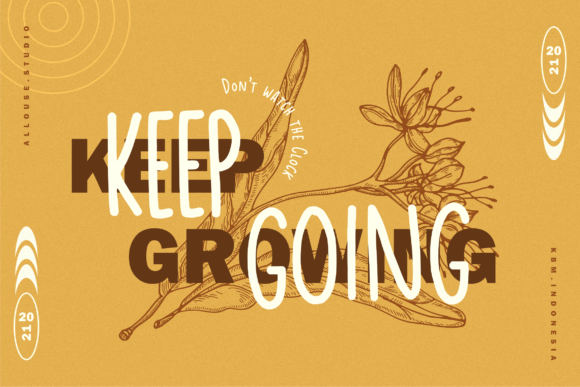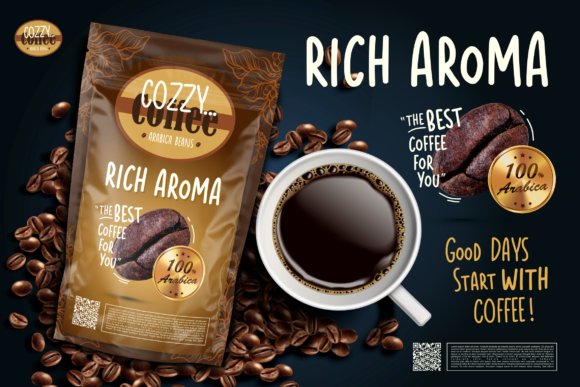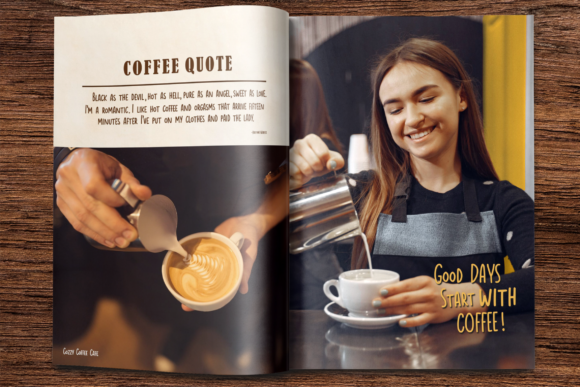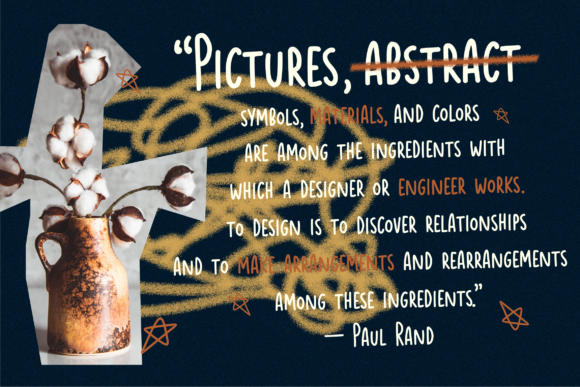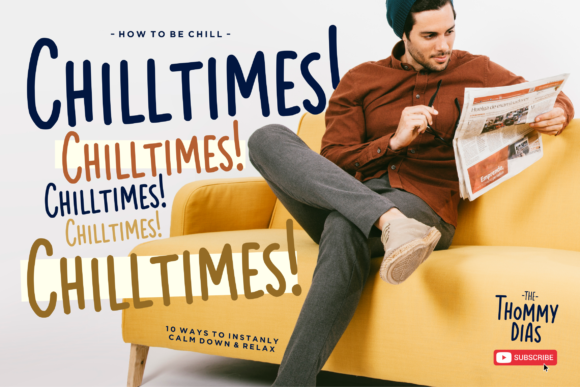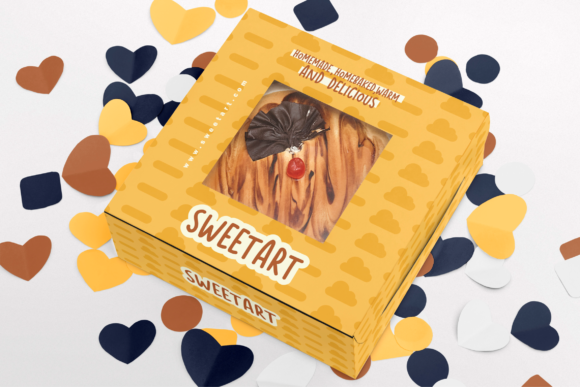
Introducing Brandy Coffee Font: The Sweet and Friendly Handwritten Font
Are you a designer or crafter looking for a font that can add a touch of sweetness and friendliness to your designs? Look no further than Brandy Coffee Font! This beautiful handwritten font is perfect for a wide range of projects, from branding and packaging to invitations and crafts. In this article, we’ll take a closer look at Brandy Coffee Font and explore its unique features, uses, and benefits.
A Natural and Unique Style
Brandy Coffee Font is a sweet and friendly handwritten font that boasts a natural and unique style. Its organic feel makes it incredibly fitting for a large pool of designs, from rustic and vintage to modern and playful. The font’s distinctive character is perfect for adding a personal touch to your designs, setting them apart from the crowd.
The versatility of Brandy Coffee Font is one of its standout features. With this font, the only limit is your imagination! You can use it to create stunning:
- Branding and packaging designs that showcase your products in a unique and eye-catching way
- Invitations and greeting cards that are sure to impress
- Crafts and DIY projects that require a personal touch
- Signs and posters that grab attention
- Digital and print media, including social media graphics and blog posts
Key Features of Brandy Coffee Font
So, what makes Brandy Coffee Font so special? Here are some of its key features:
- Handwritten style: Brandy Coffee Font is a genuine handwritten font, giving it a warm and personal feel
- Unique character: The font’s distinctive character sets it apart from other fonts, making it perfect for designs that require a personal touch
- Natural and organic feel: Brandy Coffee Font has a natural, organic feel that makes it perfect for rustic, vintage, and playful designs
- Highly versatile: The font can be used for a wide range of projects, from branding and packaging to crafts and digital media
Why Choose Brandy Coffee Font?
With so many fonts available, why choose Brandy Coffee Font? Here are just a few reasons:
- Adds a personal touch: Brandy Coffee Font adds a personal touch to your designs, making them more relatable and engaging
- Stand out from the crowd: The font’s unique character helps your designs stand out from the crowd, grabbing attention and making a lasting impression
- Easy to use: Brandy Coffee Font is easy to use, even for those with limited design experience
- Supports creative freedom: With Brandy Coffee Font, you have the freedom to create unique and imaginative designs that reflect your style and vision
Tips for Using Brandy Coffee Font
To get the most out of Brandy Coffee Font, here are a few tips:
- Experiment with different sizes and colors: Try out different sizes and colors to add visual interest to your designs
- Pair with other fonts: Combine Brandy Coffee Font with other fonts to create a unique and eye-catching look
- Use for headlines and body text: The font is suitable for both headlines and body text, making it perfect for a wide range of projects
- Be creative!: Don’t be afraid to try new and imaginative things – Brandy Coffee Font is perfect for experimenting with different design ideas
Brandy Coffee Font is a sweet and friendly handwritten font that’s perfect for designers and crafters looking to add a personal touch to their designs. With its natural and unique style, versatility, and ease of use, it’s an excellent choice for a wide range of projects. Whether you’re creating branding and packaging designs, invitations, crafts, or digital media, Brandy Coffee Font is sure to impress. So why wait? Get creative with Brandy Coffee Font today and see the difference it can make!